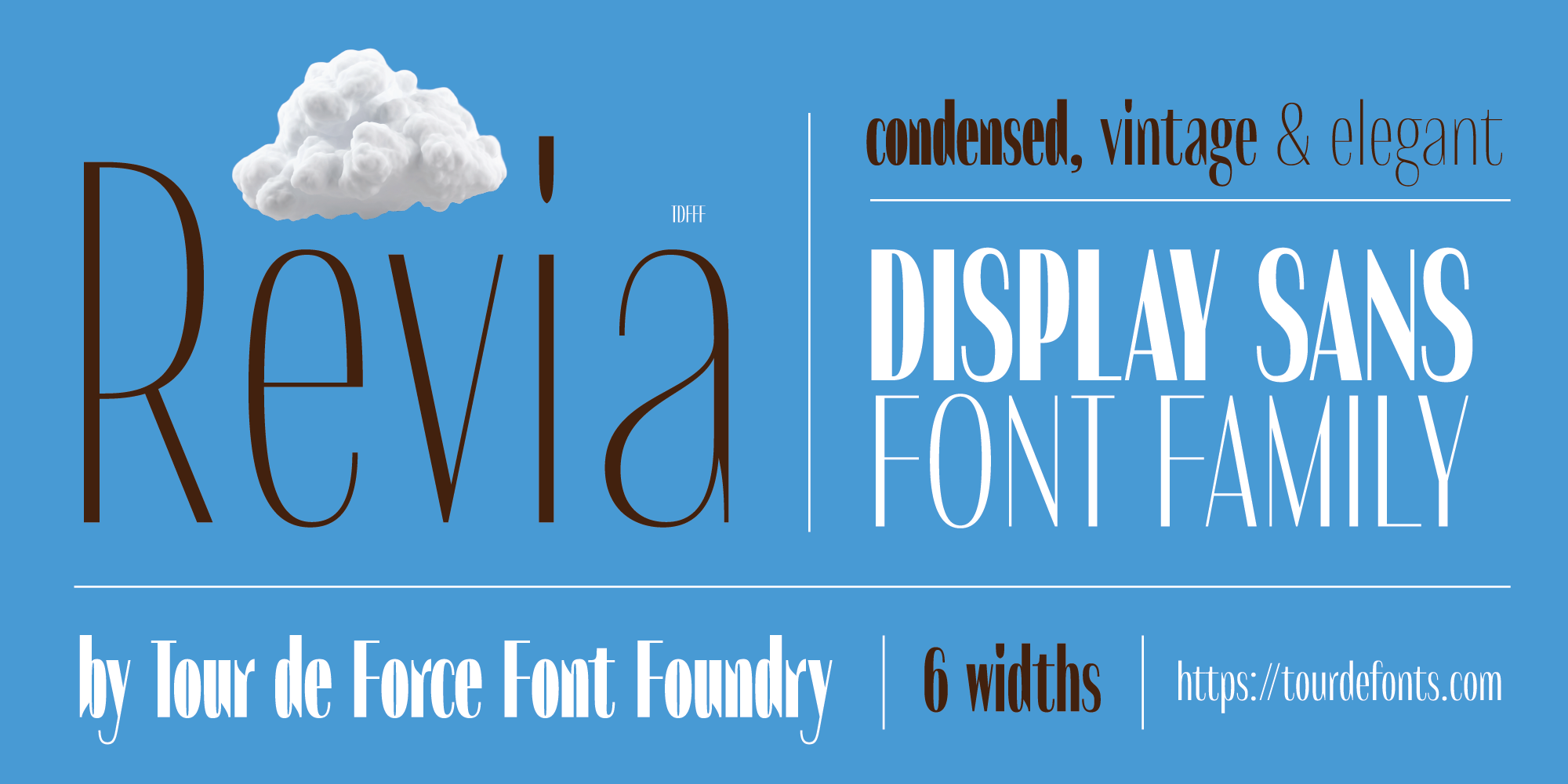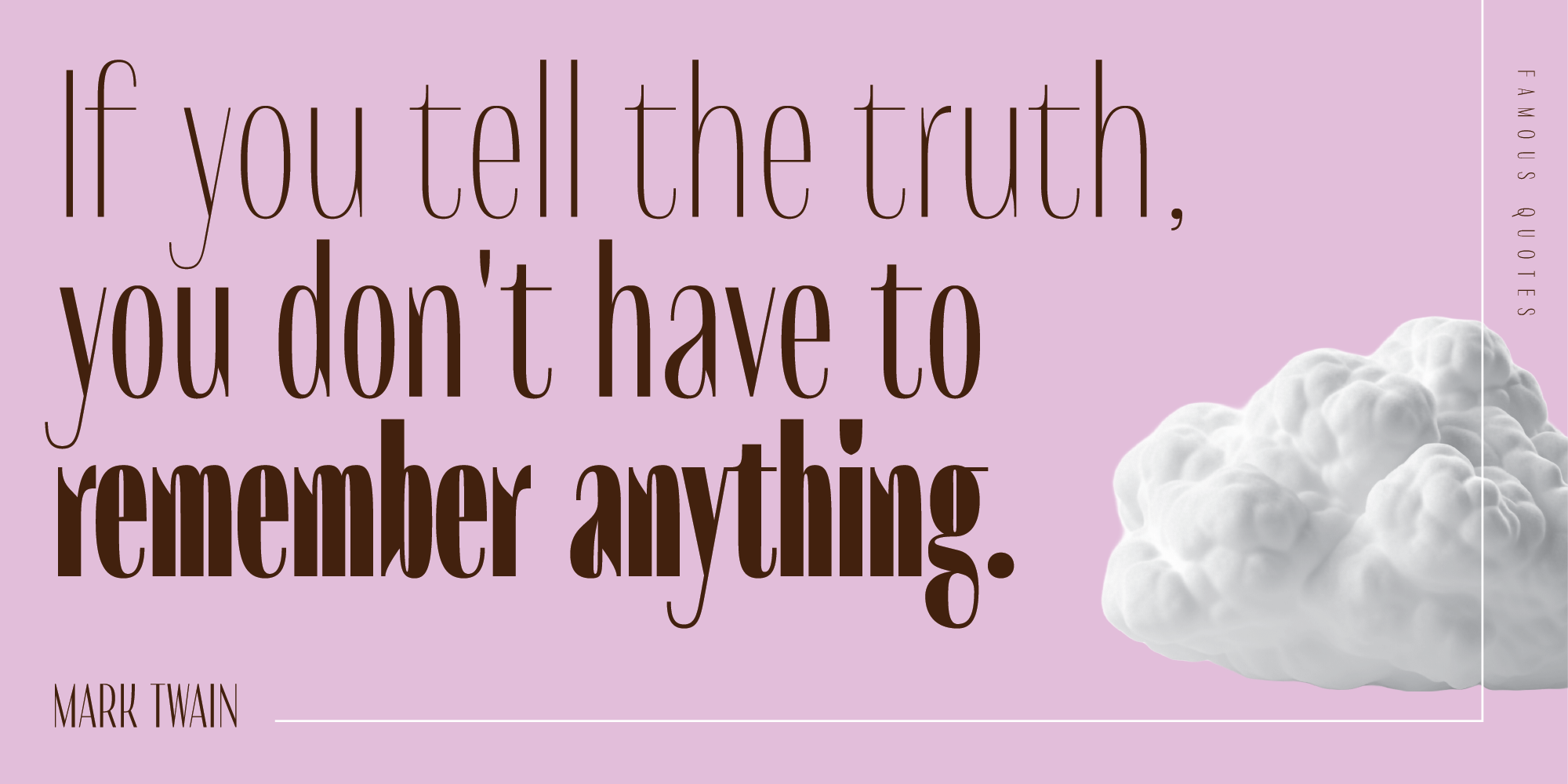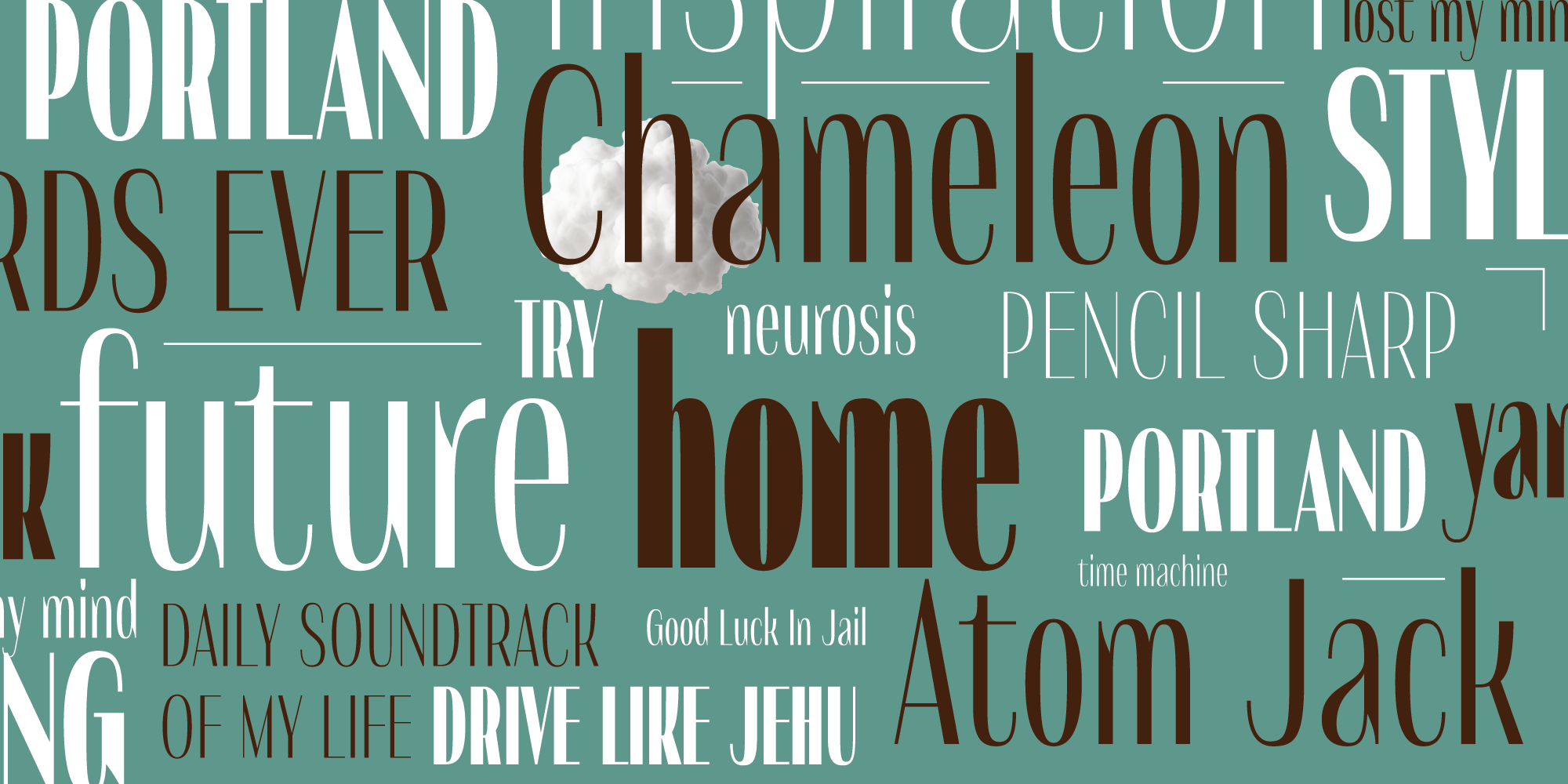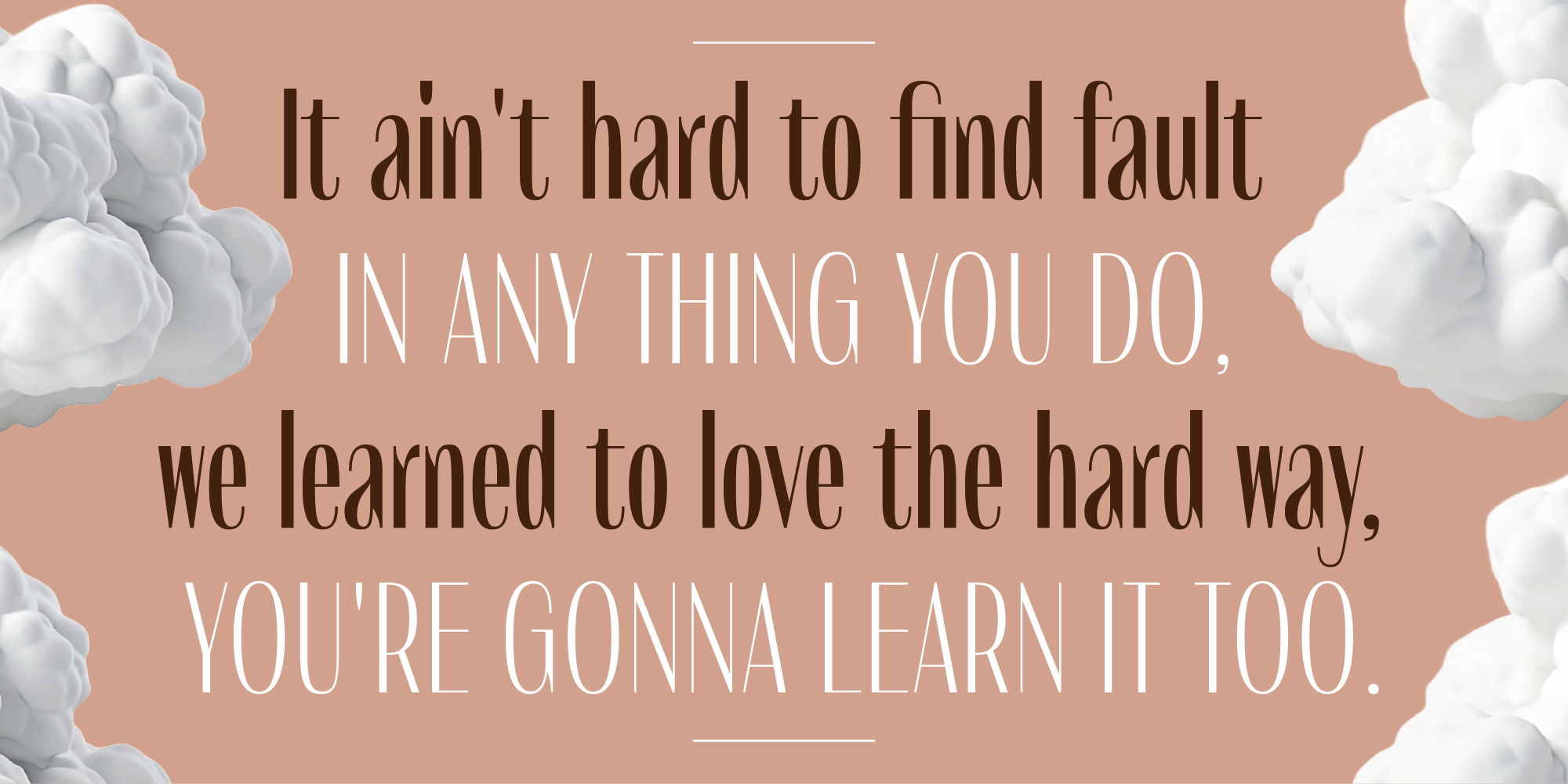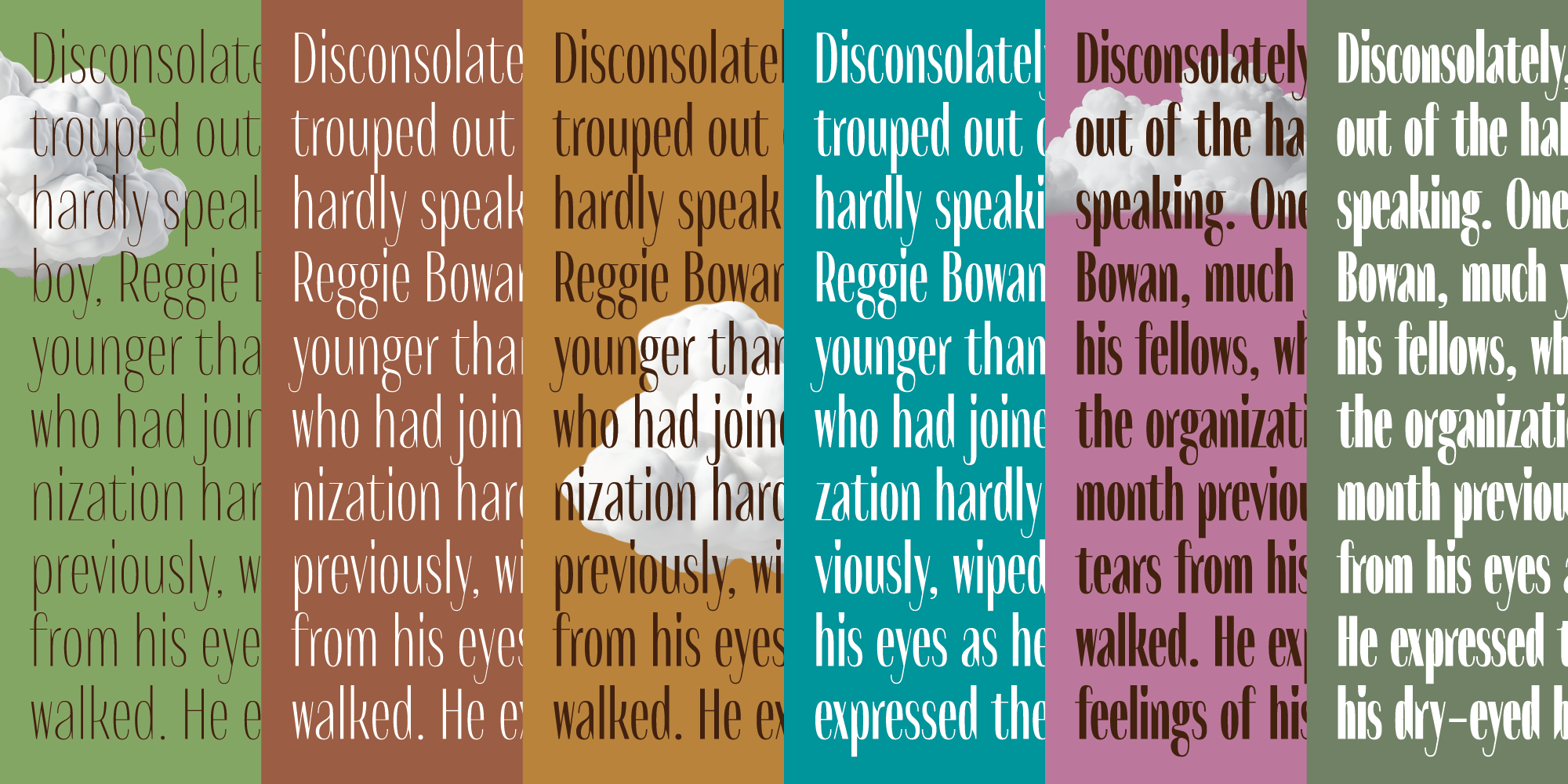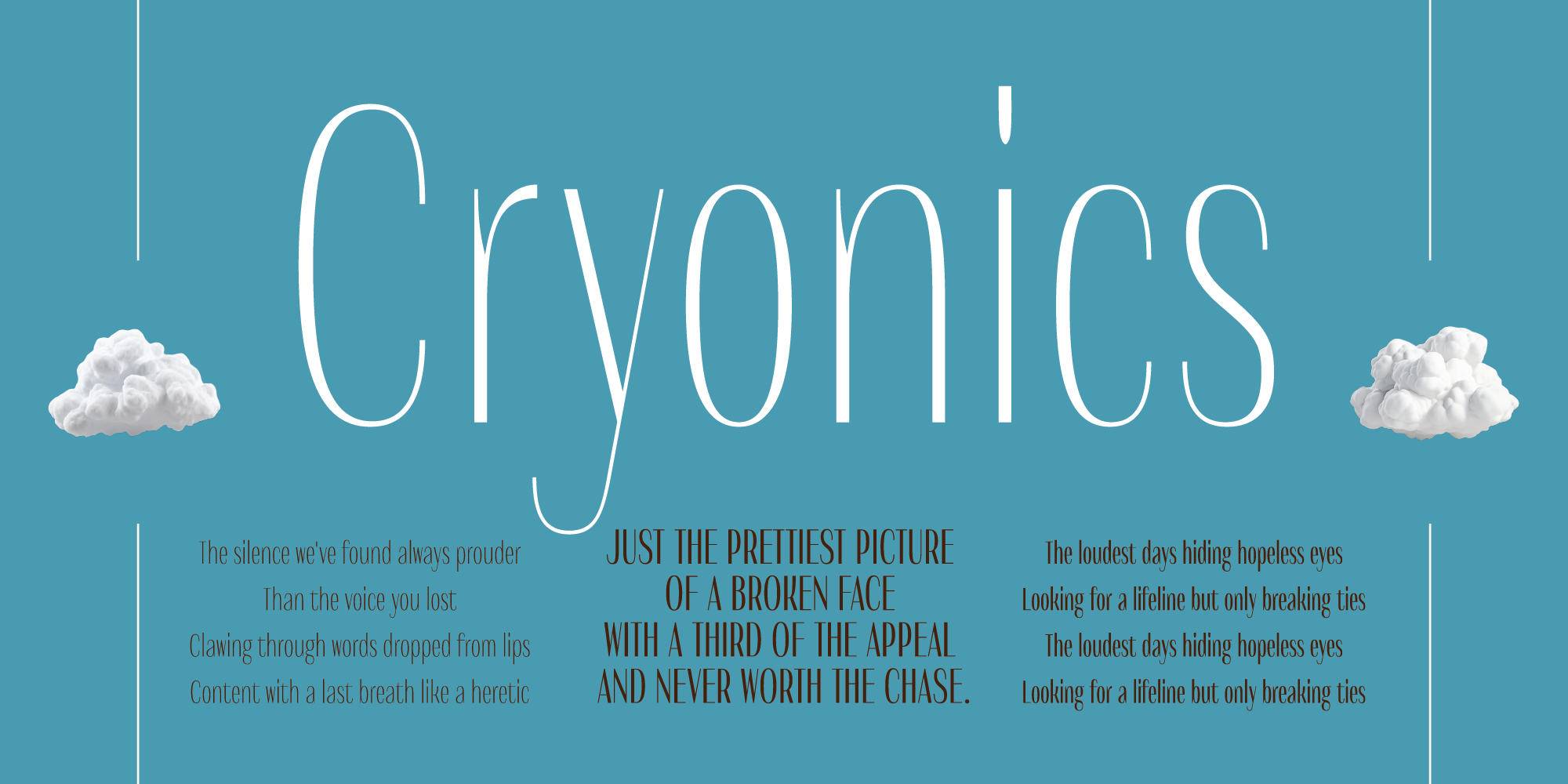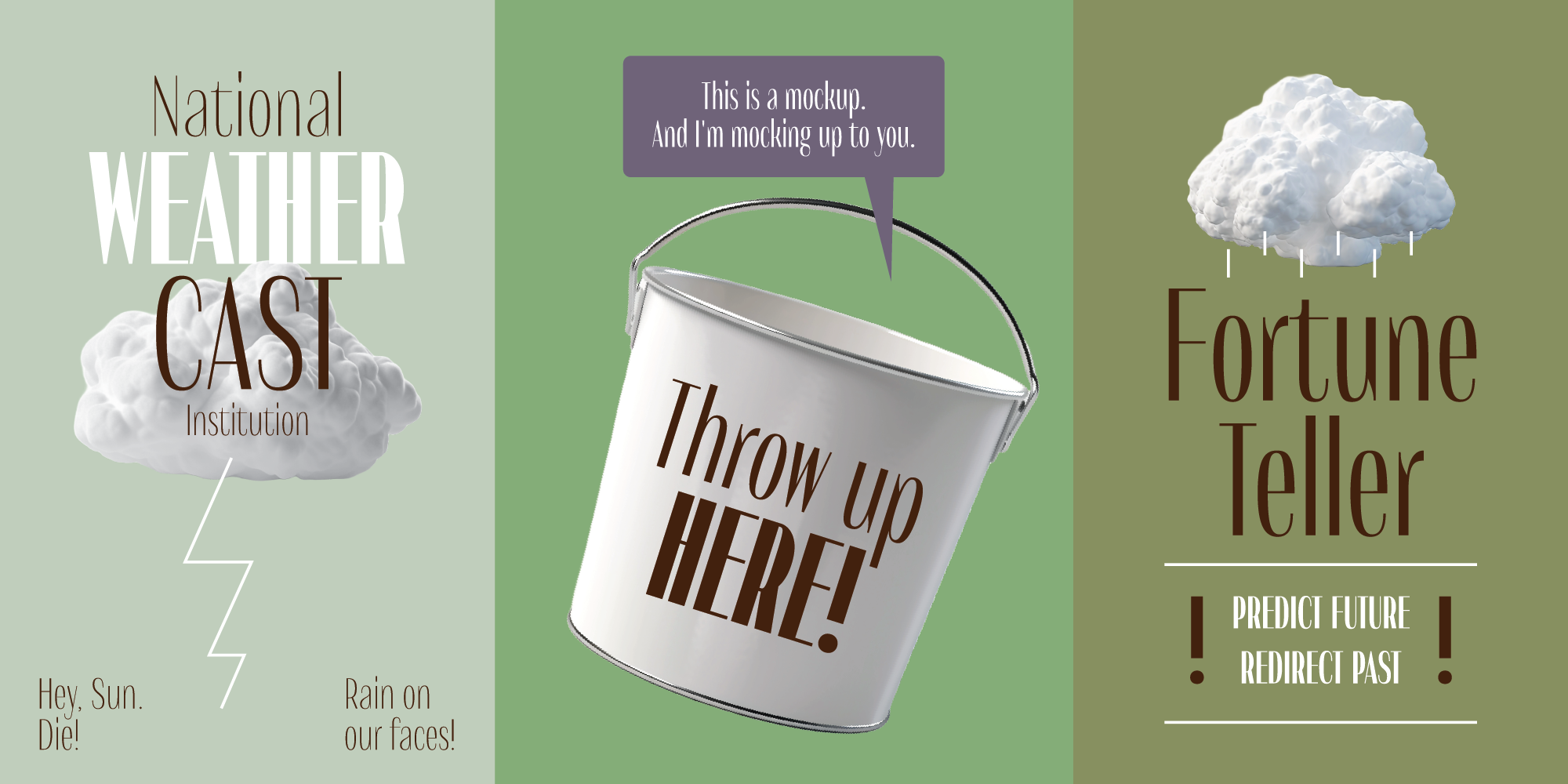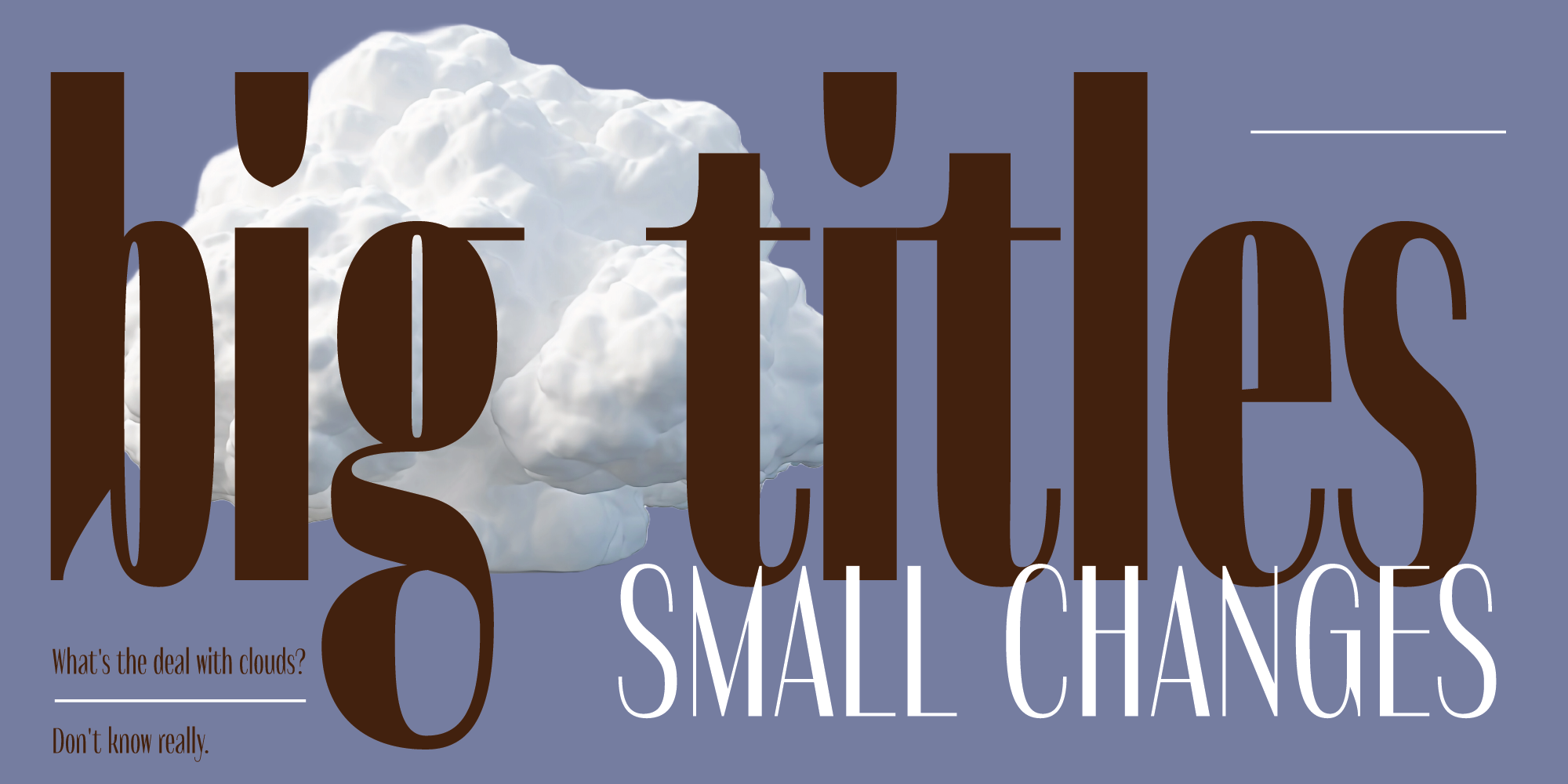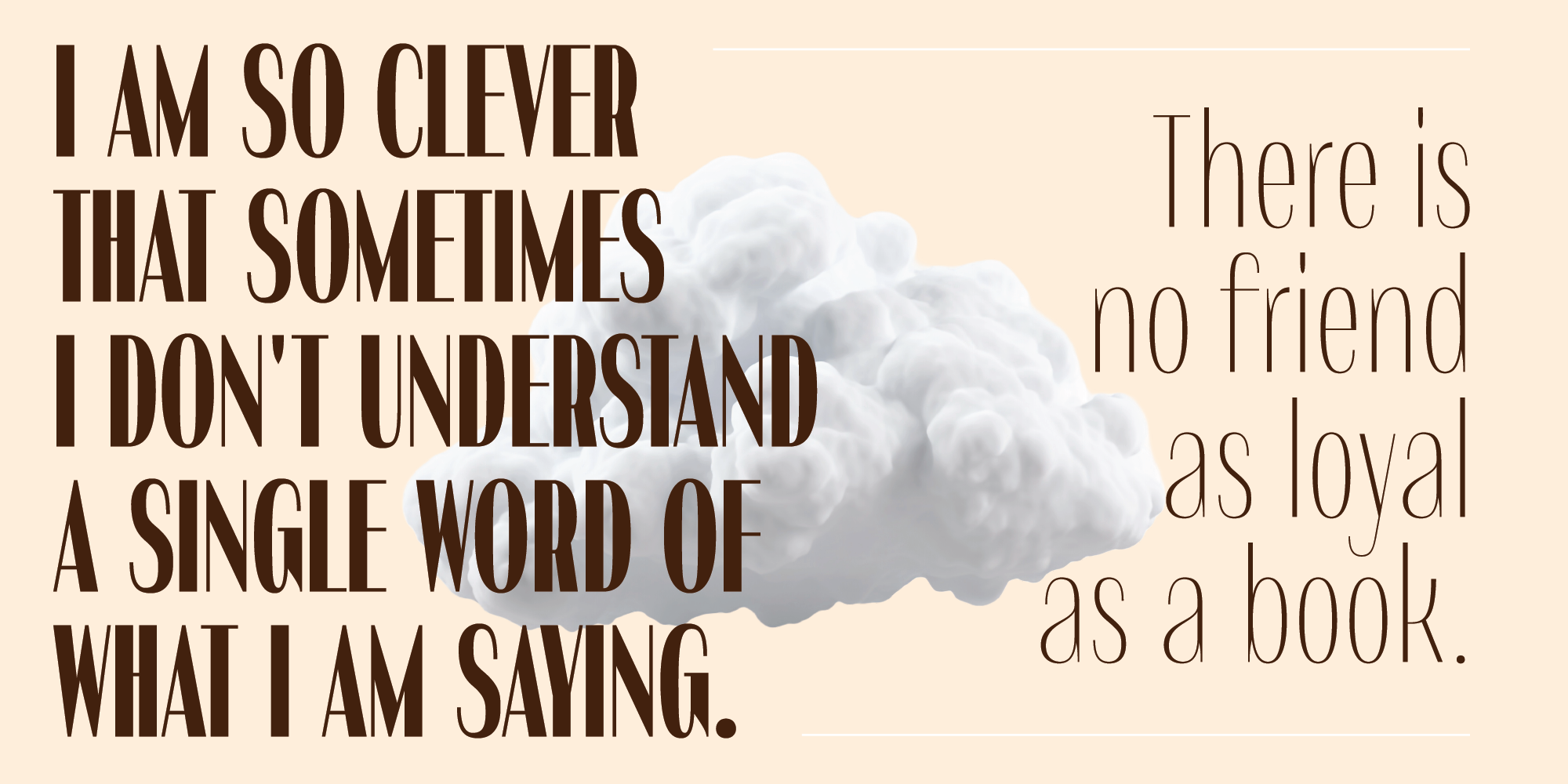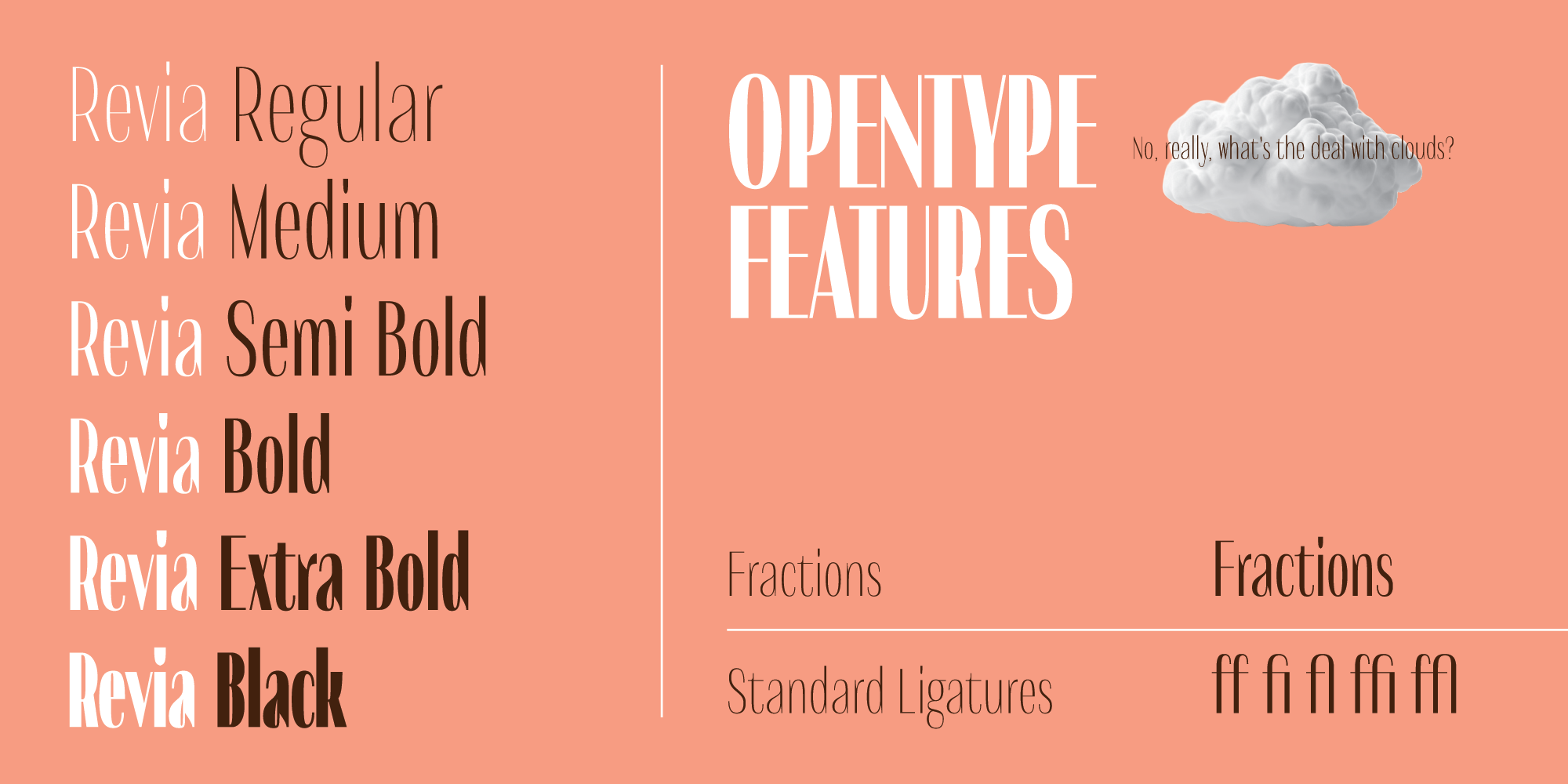
Revia is display sans serif family available in 6 weight.
Revia is display sans serif family available in 6 weight. Generously condensed with high contrasted stems, Revia represents it self as elegant, compact and versatile font family with tall lowercase letters (high x-height). While thinner weights rely on elegancy, thicker are darker, especially Black that looks like a display typeface combined with tight spacing.
Revia would be perfect choice for mostly any design project that requires saving space, decent amount of distinction and dose of charm. It's ideal for posters, package design, apps and websites as well as editorial use either as main or headline typeface.
Comes with Standard Ligatures and Fractions as OpenType Features.